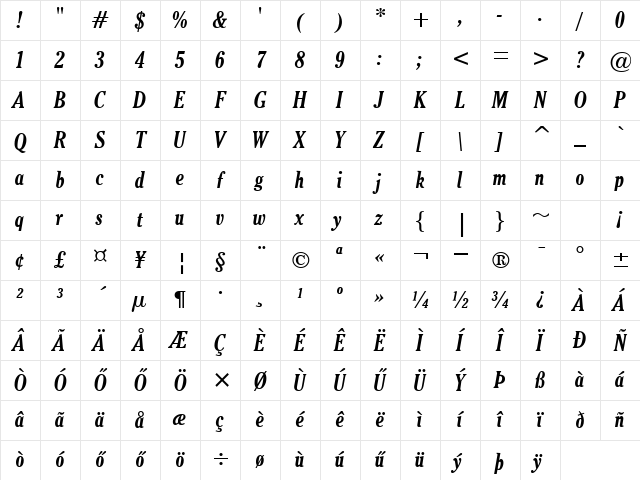
Complete H_Cheltenham BdCn BT Italic glyph index. Displaying only characters natively supported by H_Cheltenham BdCn BT Italic font.
H_Cheltenham BdCn BT is a composed and adaptable typeface that performs quietly and consistently across a wide range of design contexts. The slanted form adds forward momentum and visual energy.